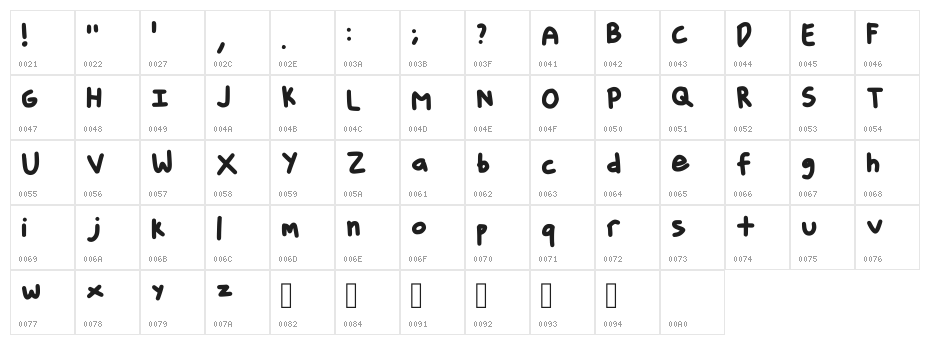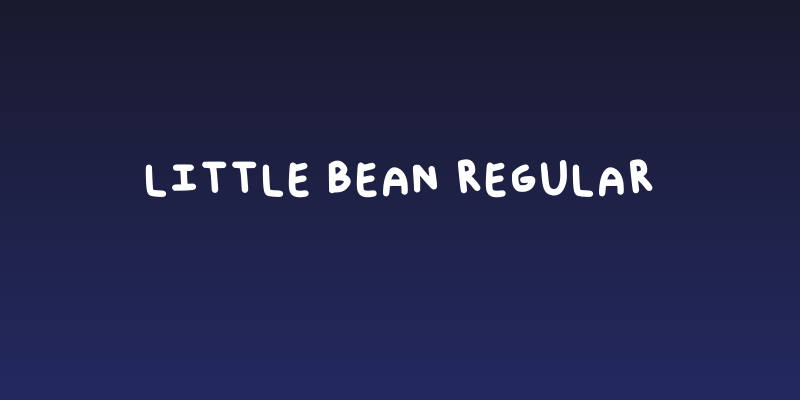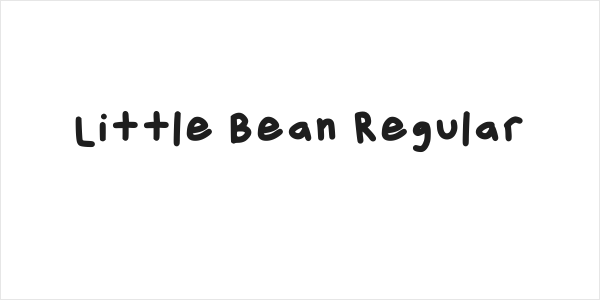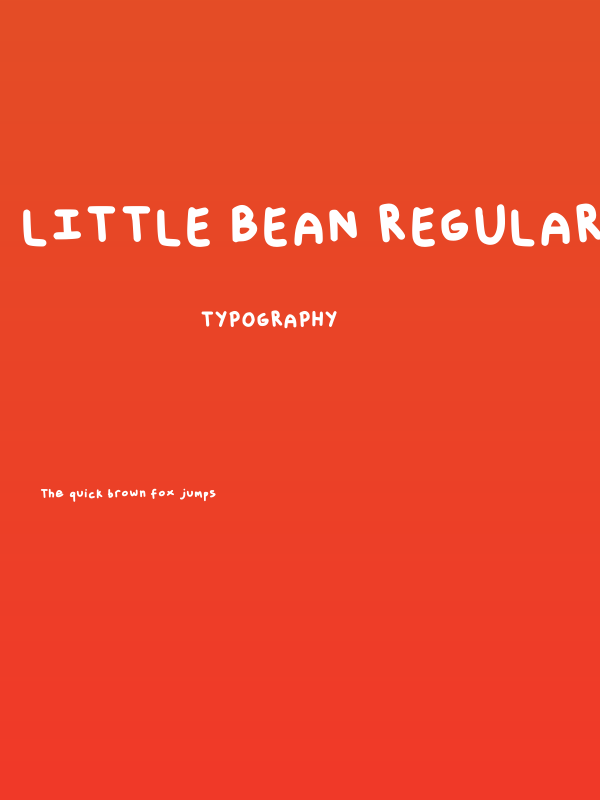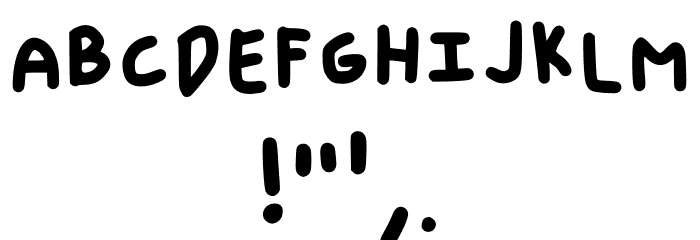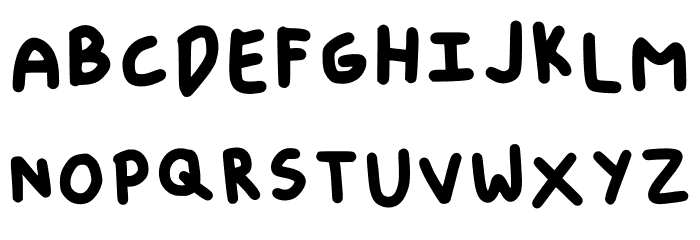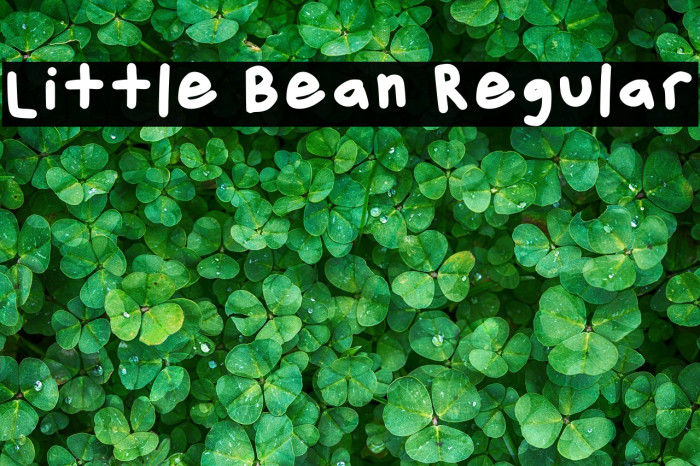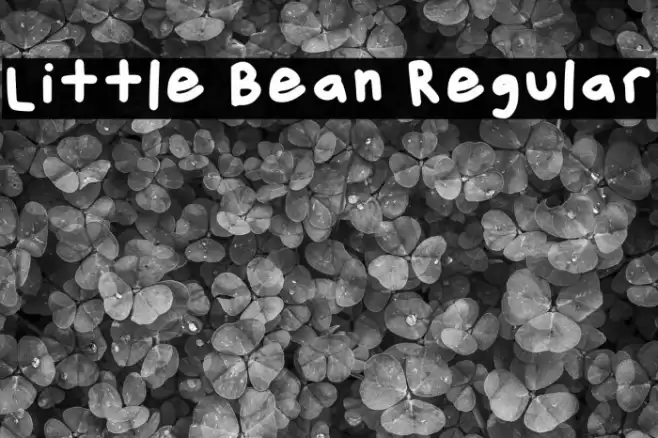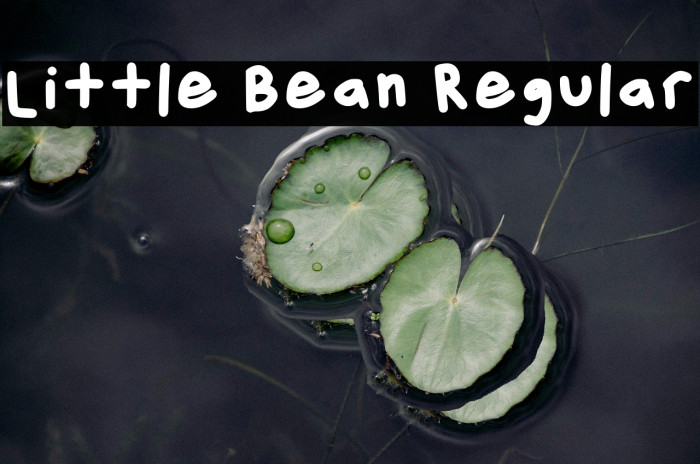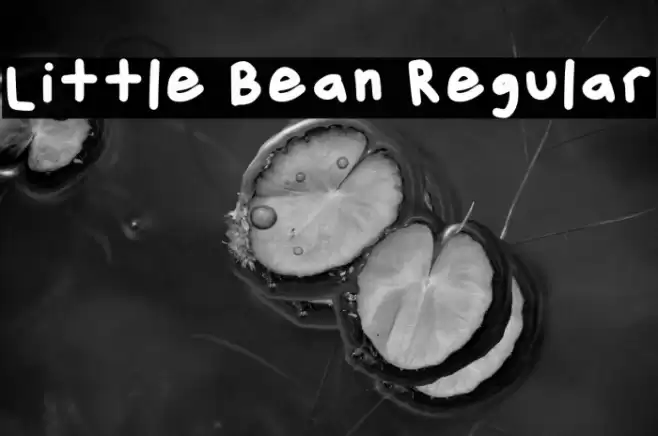
Little Bean Regular Font
Little Bean Regular Description
A playful, rounded, handwritten style font with a casual and friendly appearance.
| Overall Style | Casual, Playful, Friendly |
| Use Case | Headlines, Body text, Logos, Invitations |